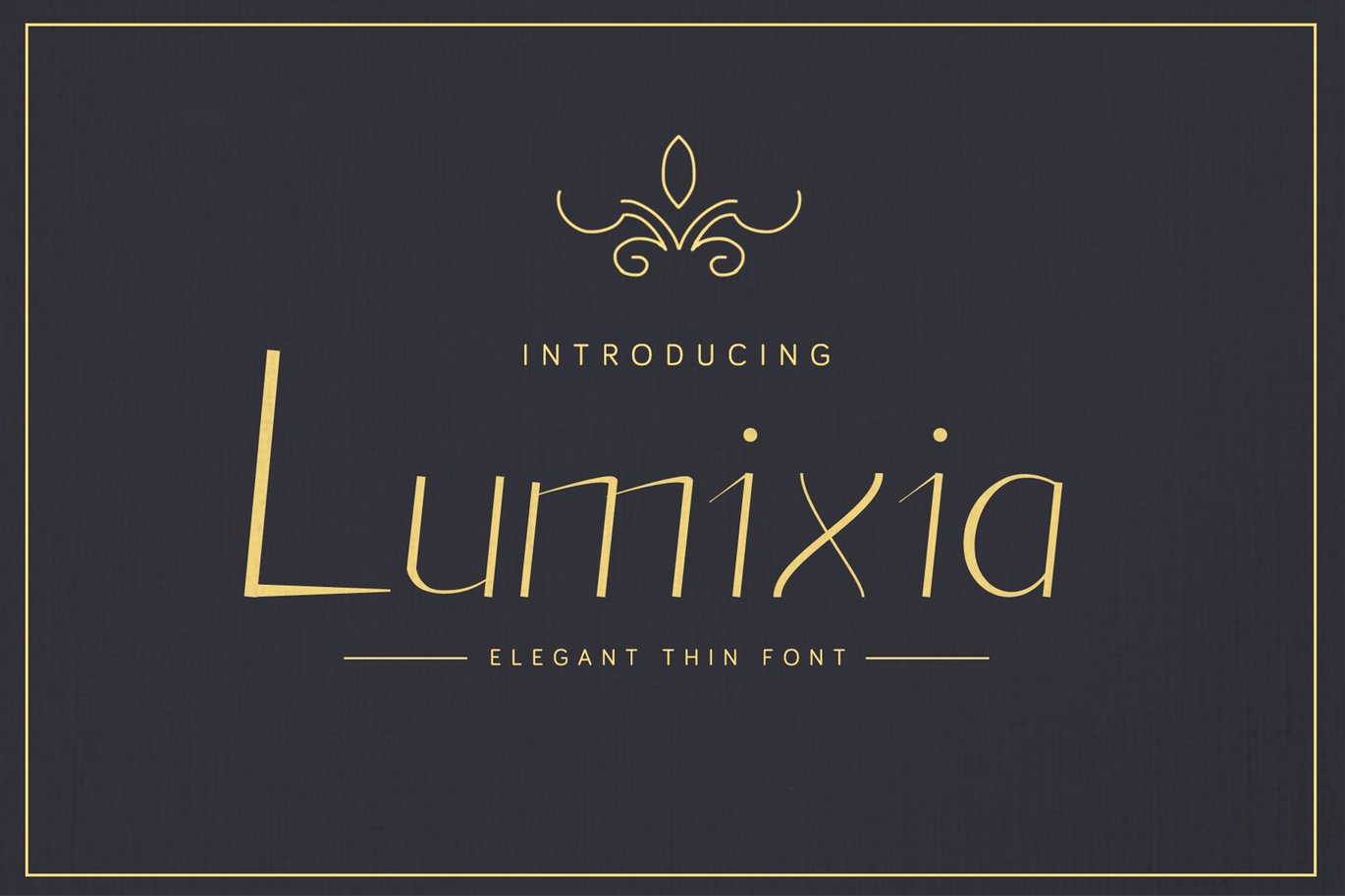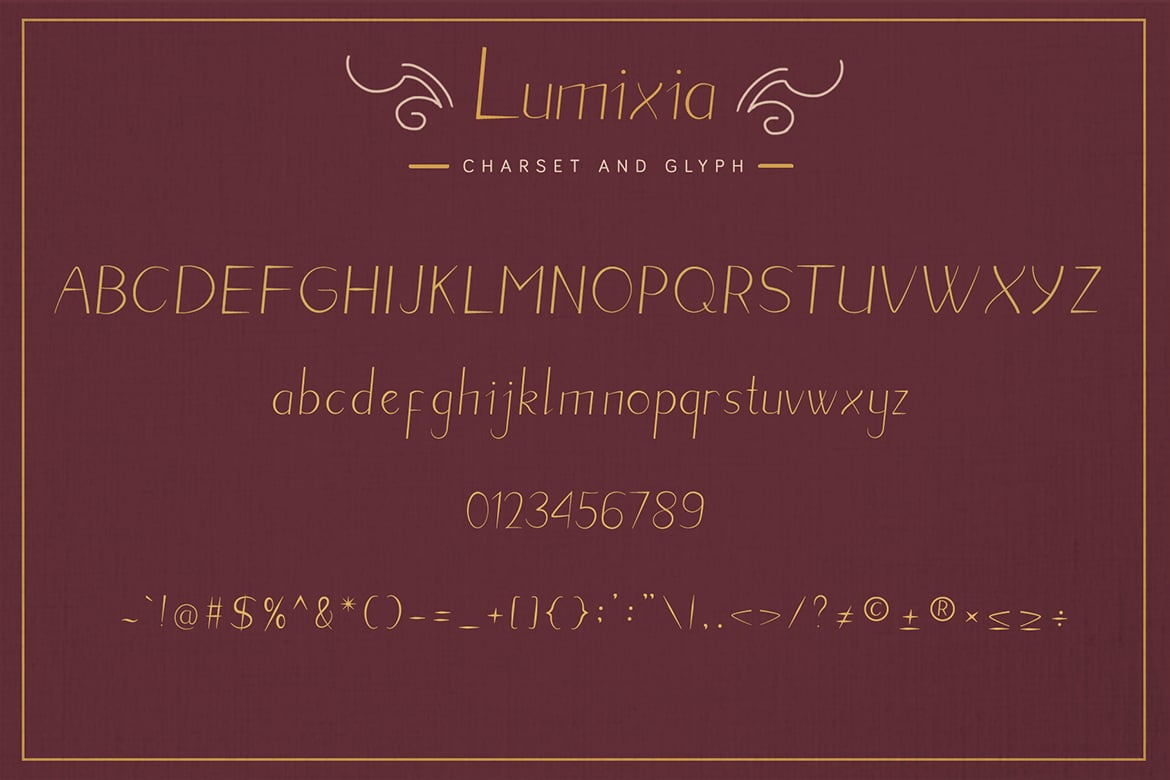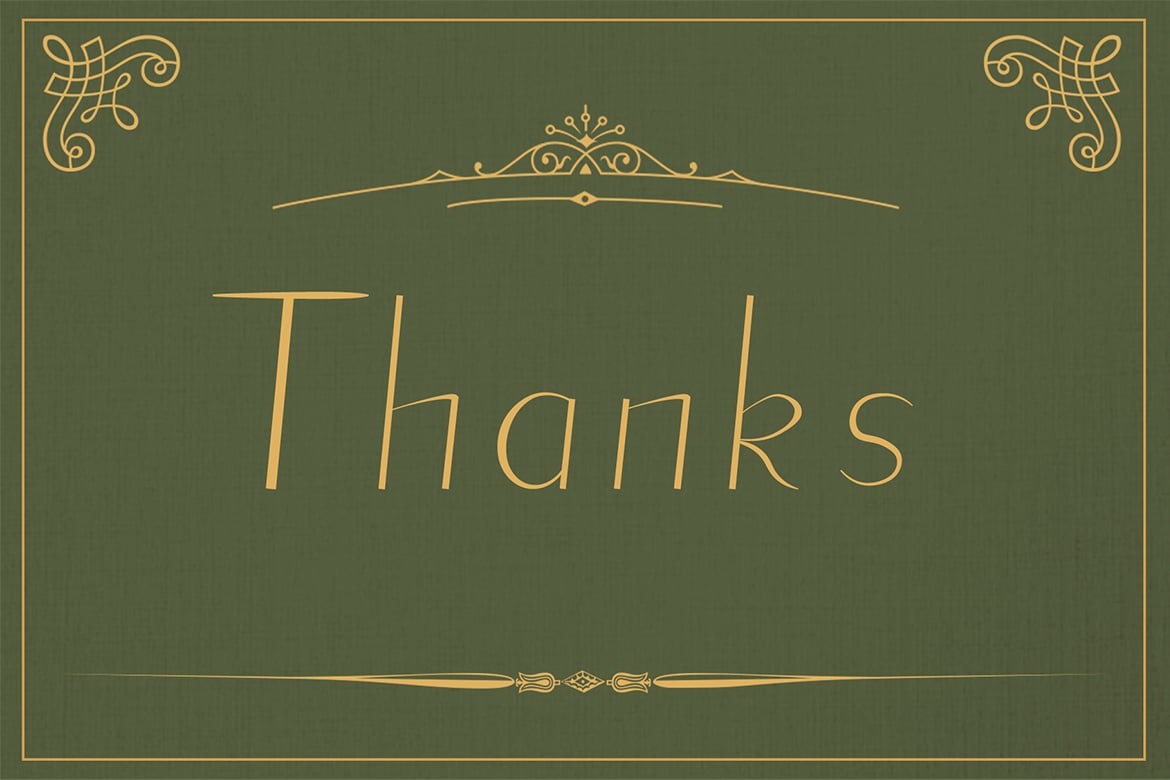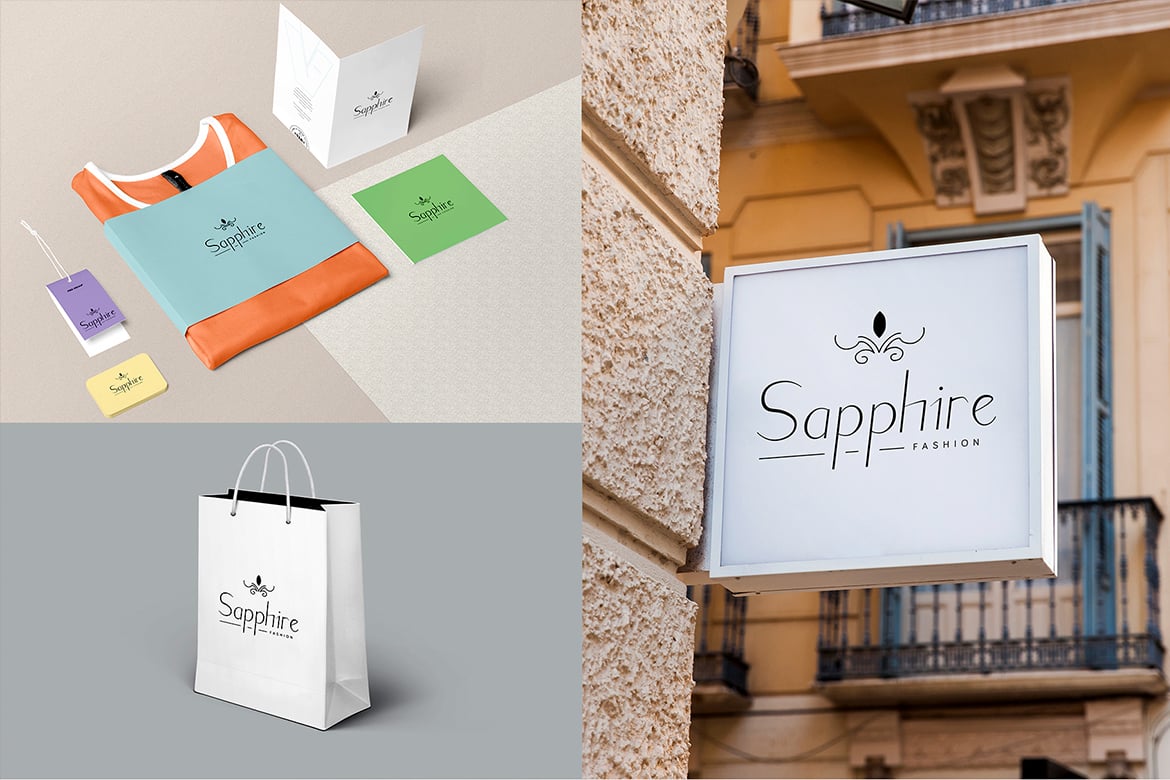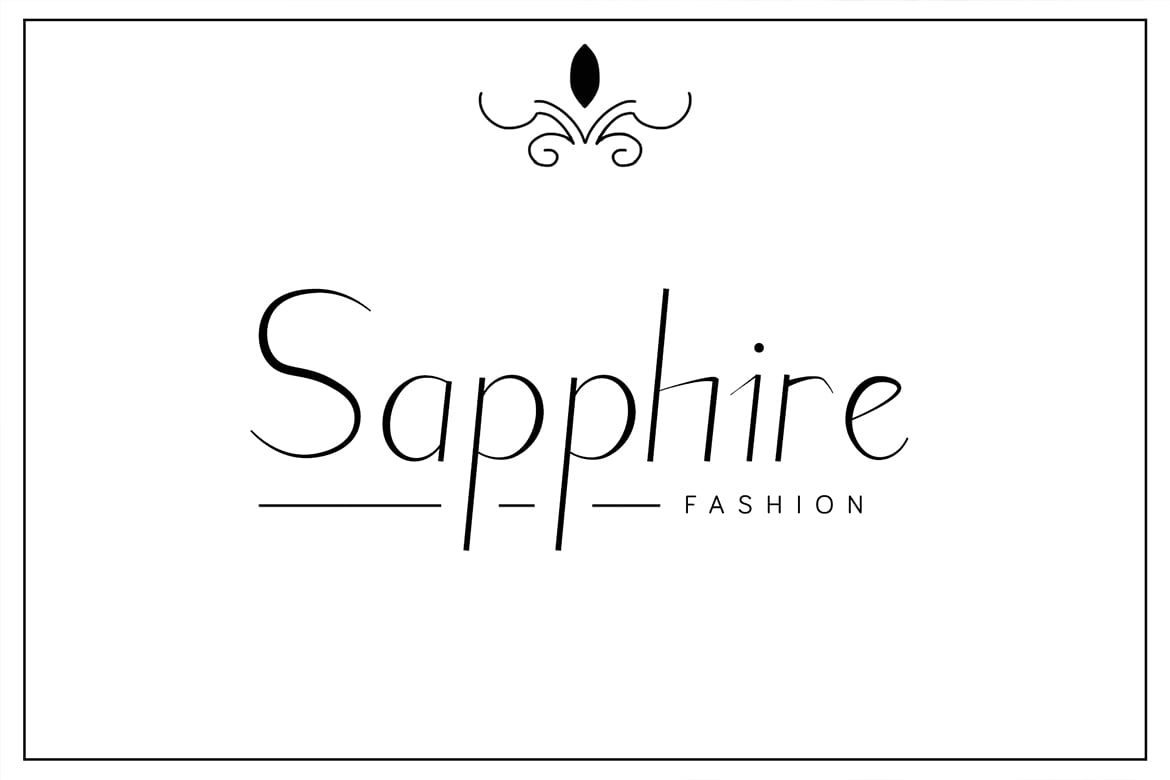
Lumixia – Elegant Font
Lumixia is a Sans Serif font that is suitable for all kinds of company needs, made with good composition and precision to make it look firm even though thin.